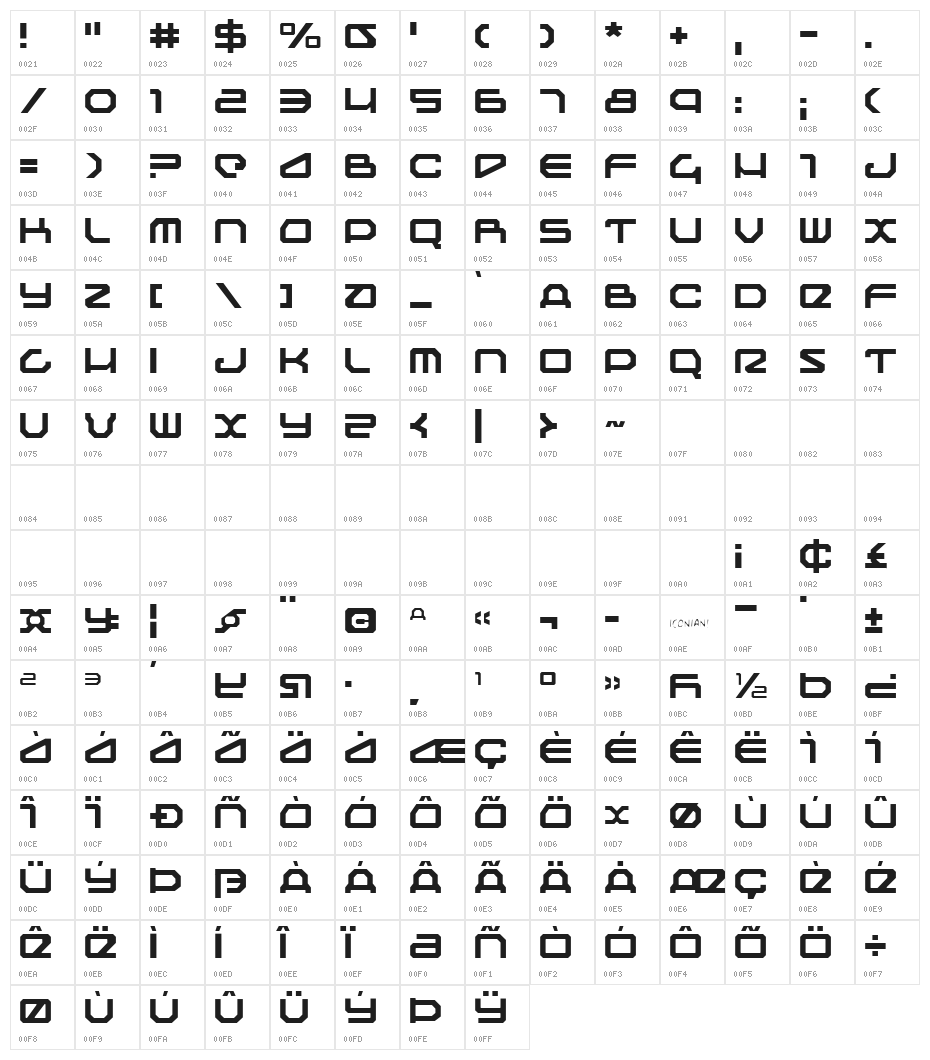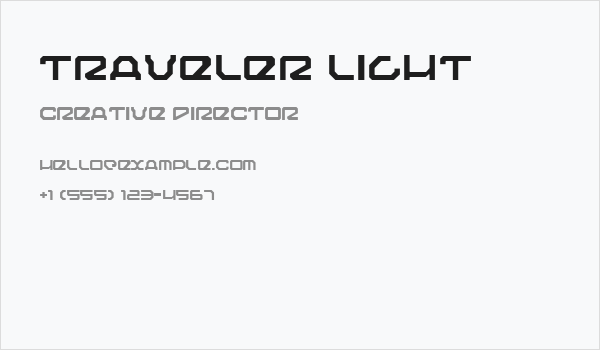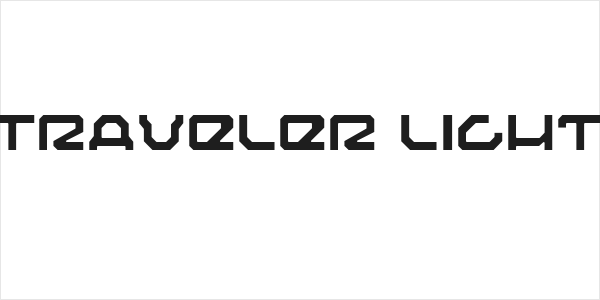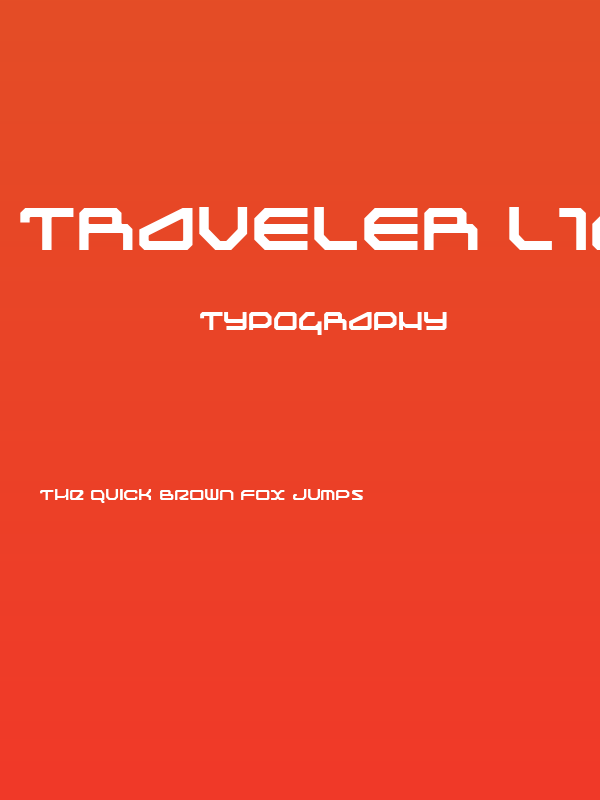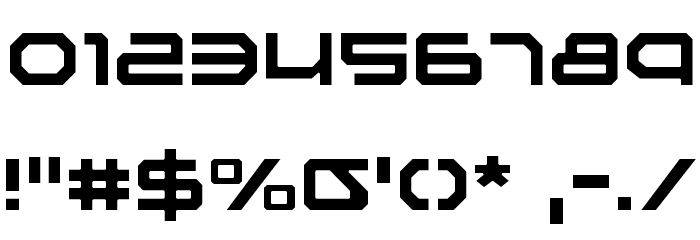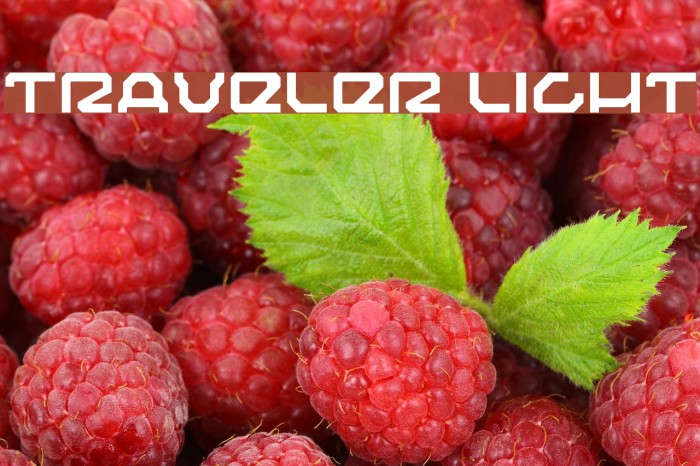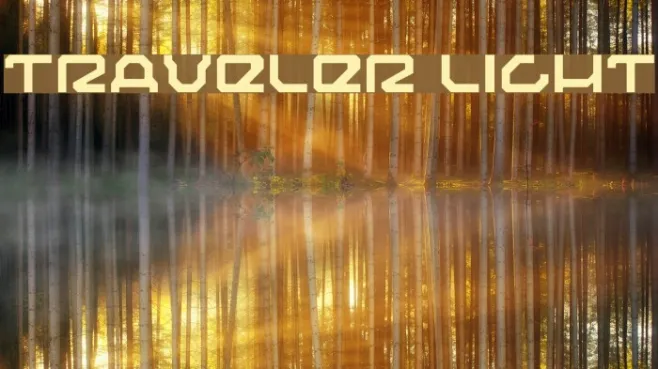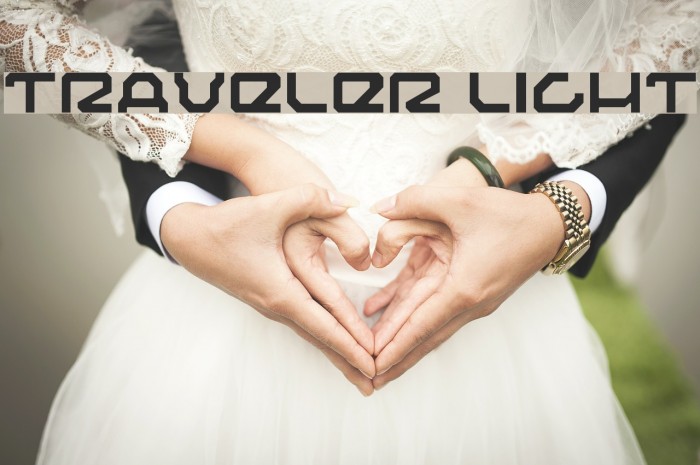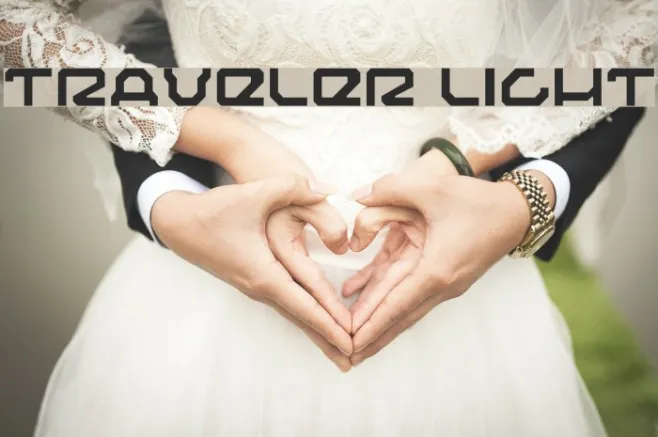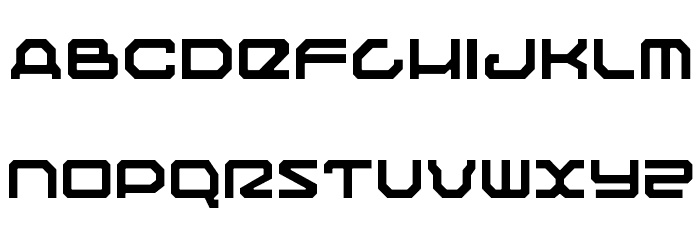
Traveler Light Font
Traveler Light Description
This font features a futuristic and geometric design, characterized by its angular and sharp edges. The characters are constructed with a consistent width, giving it a monospaced appearance, although it is not strictly monospaced. The uppercase and lowercase letters maintain a uniform height, contributing to a clean and organized look. The numbers and special characters follow the same design principles, ensuring a cohesive style throughout. The font's unique style makes it stand out, while its readability is maintained through clear and distinct letterforms.
| Proposed Projects | Ideal for sci-fi themed projects, technology branding, video game interfaces, and modern posters. |